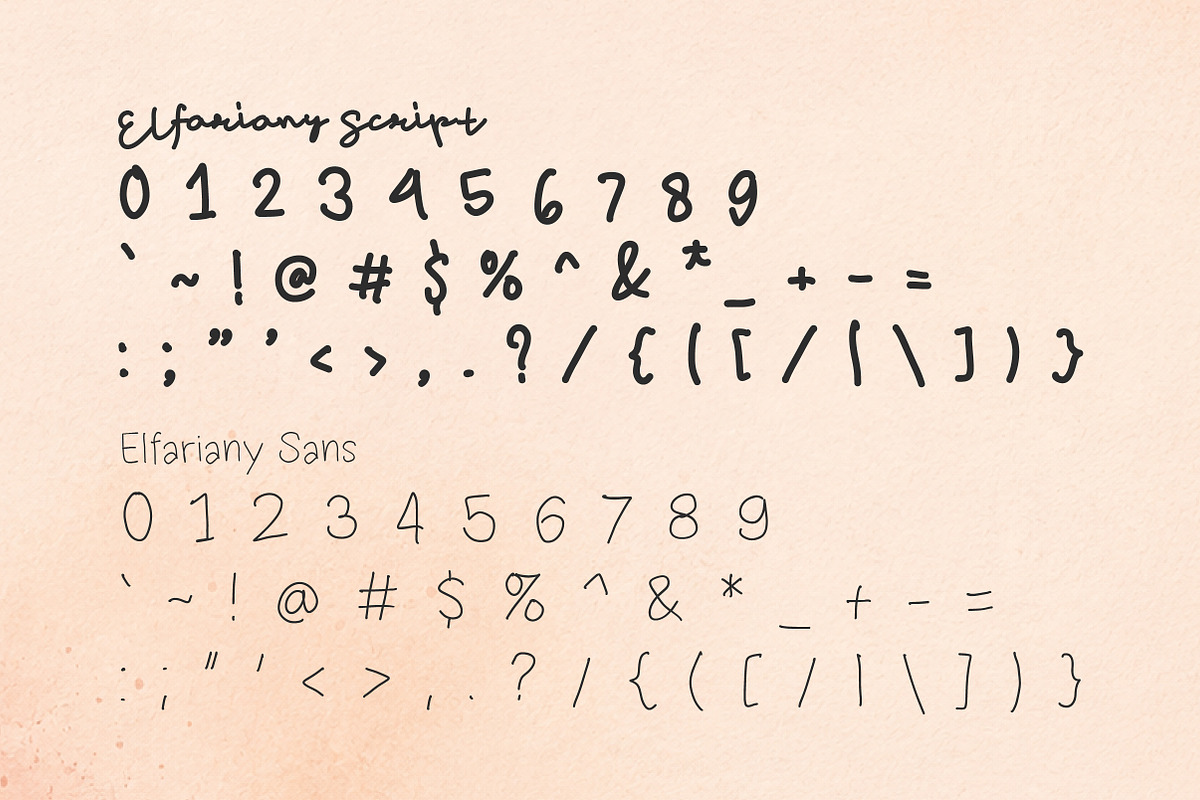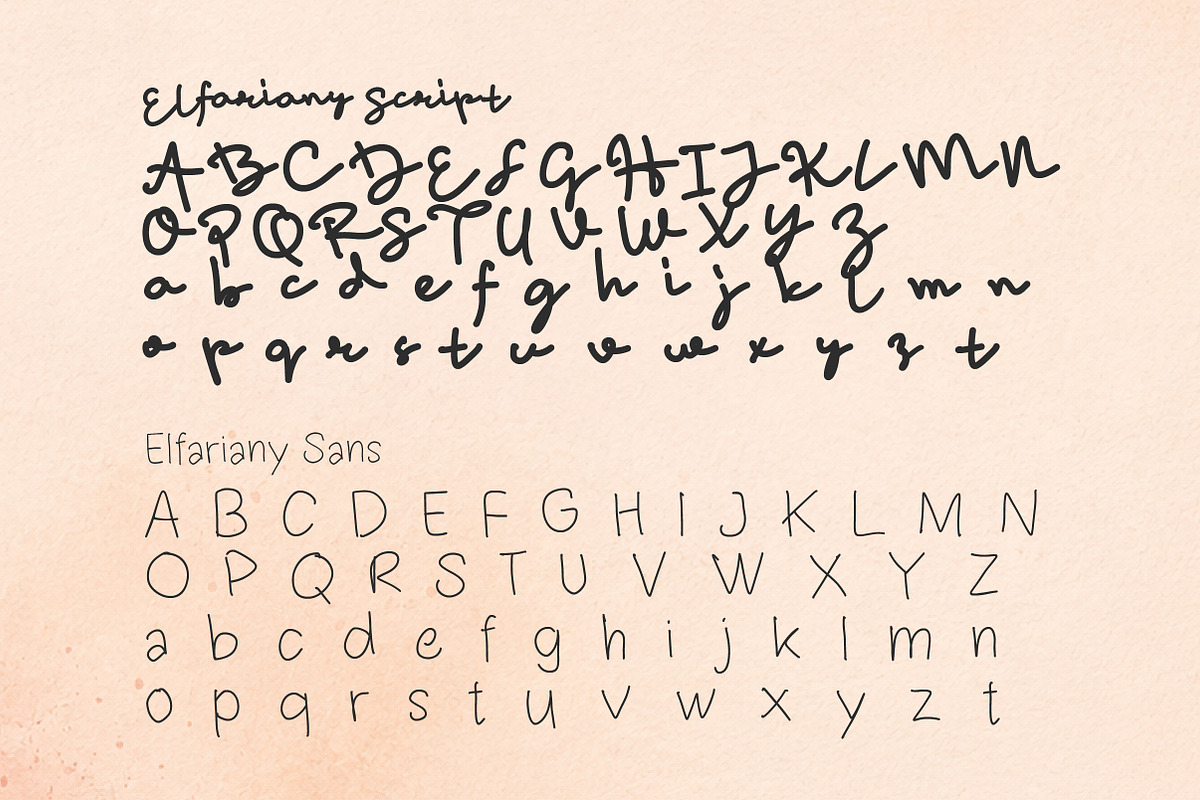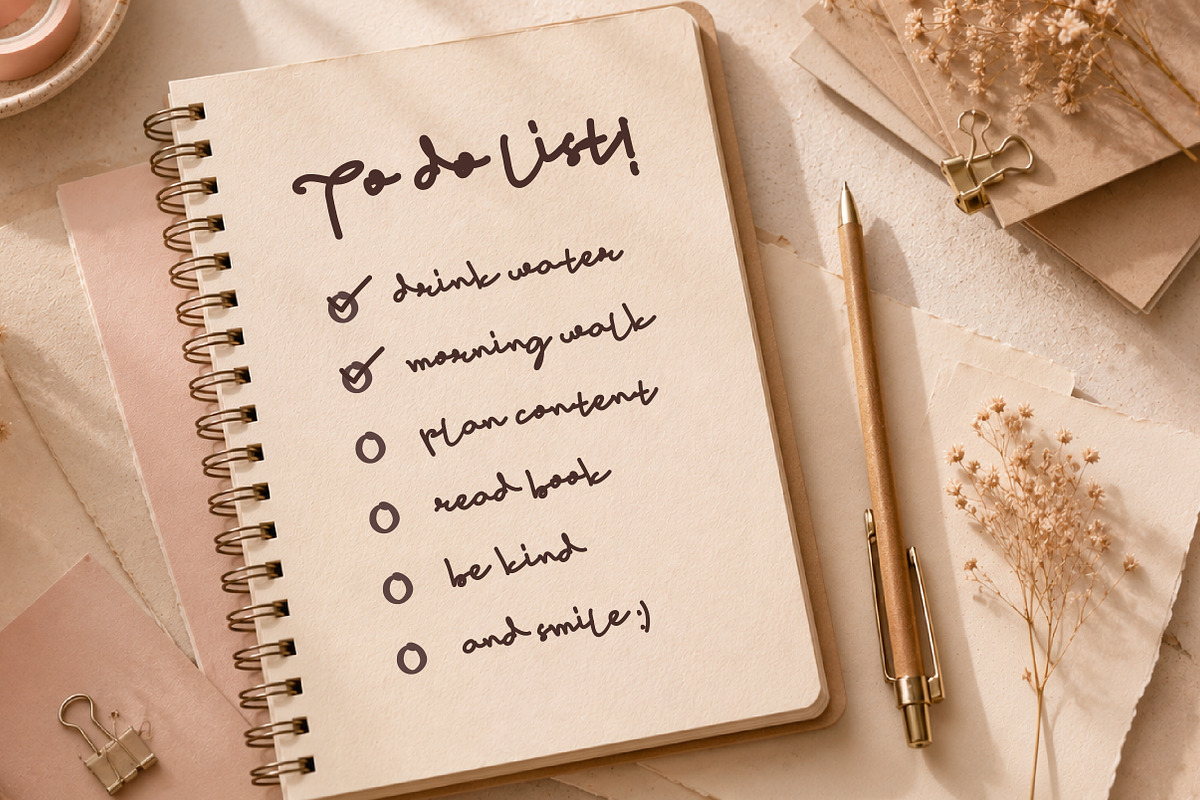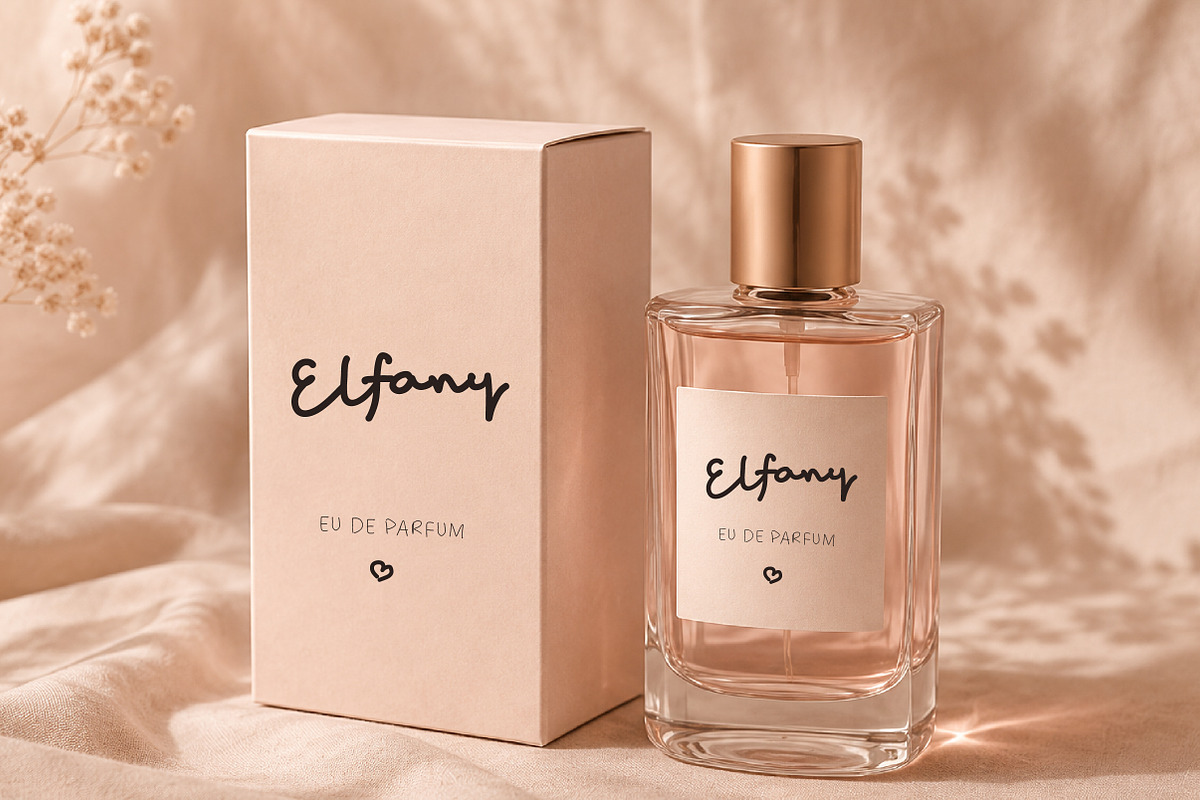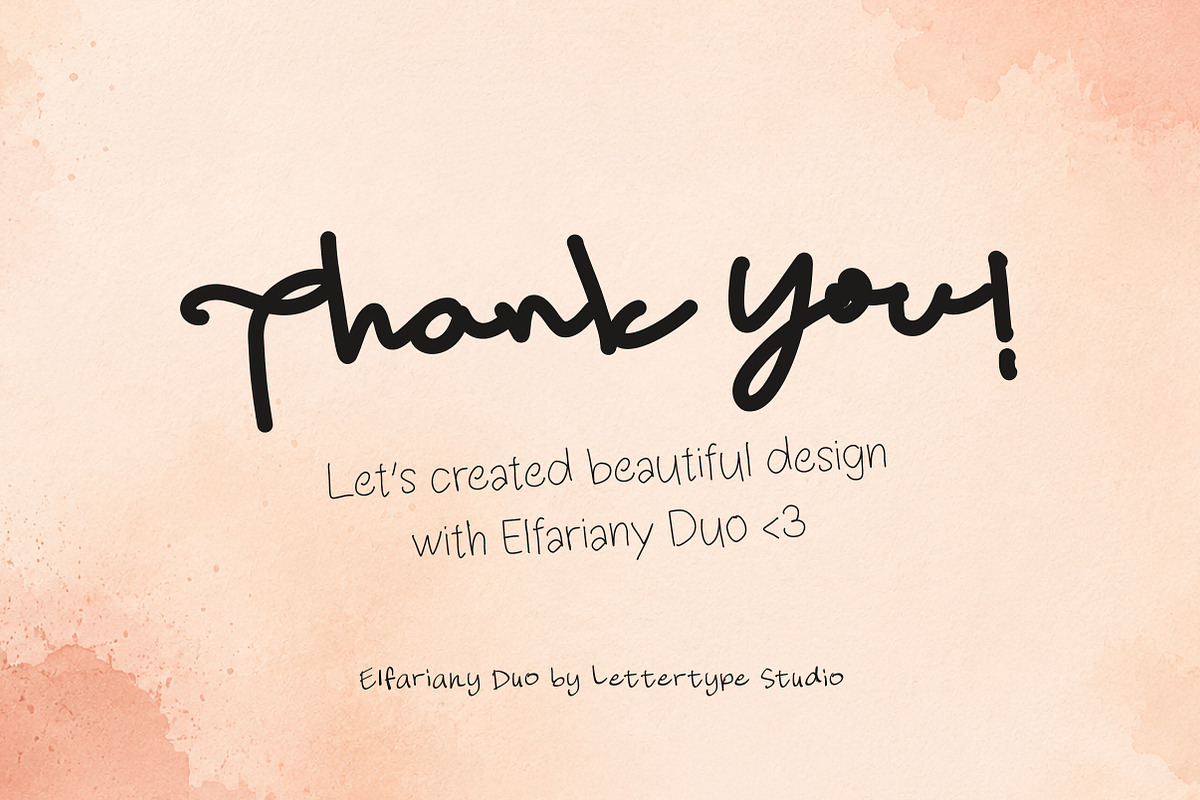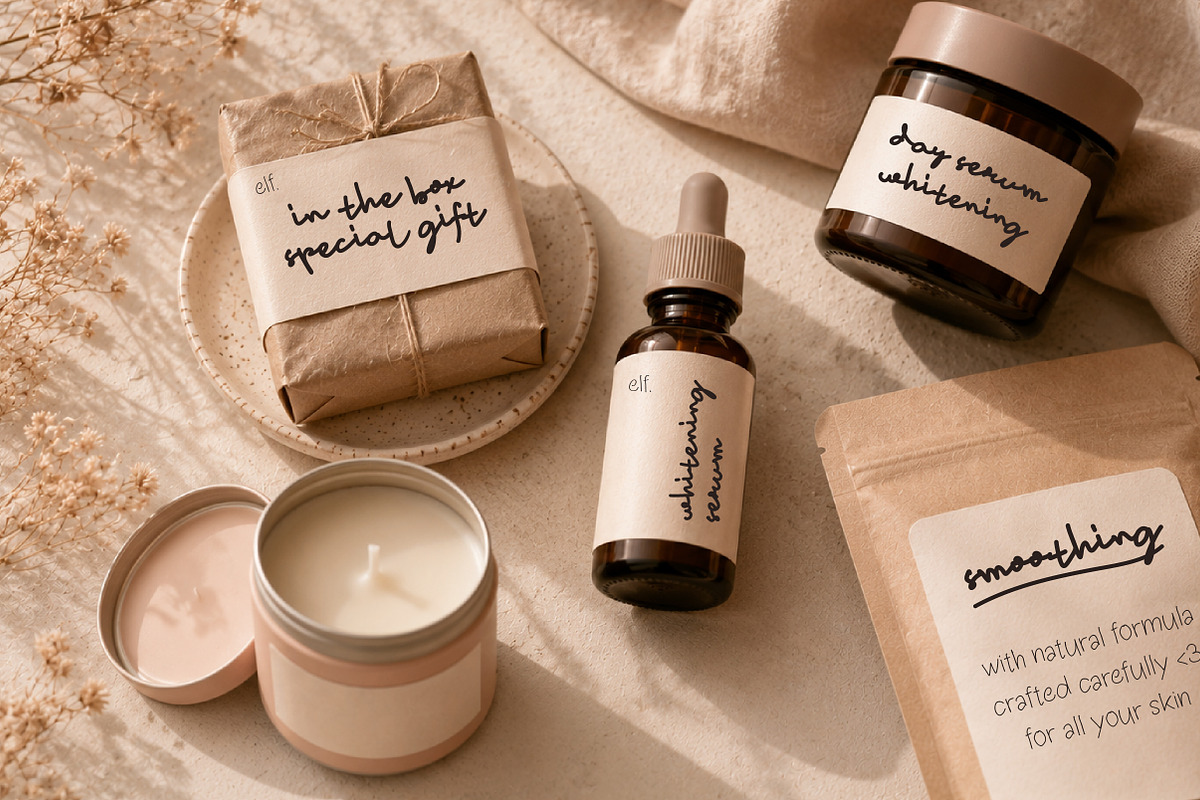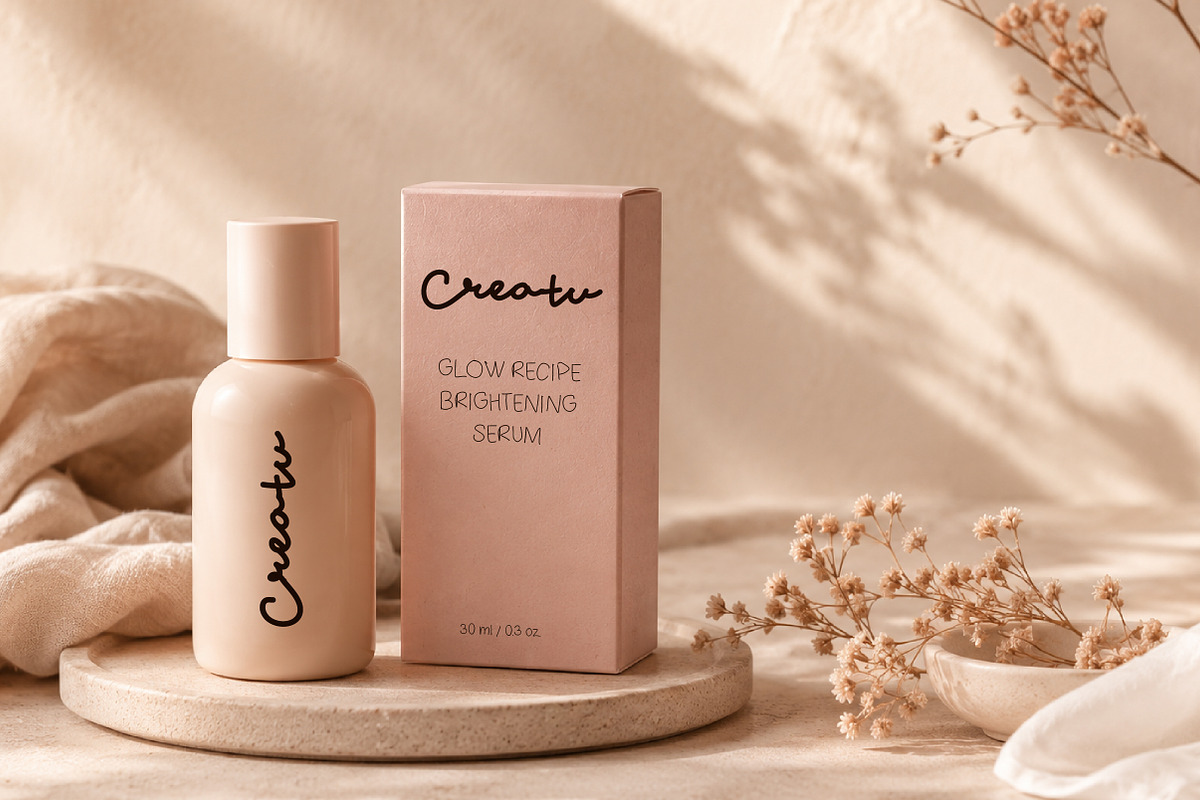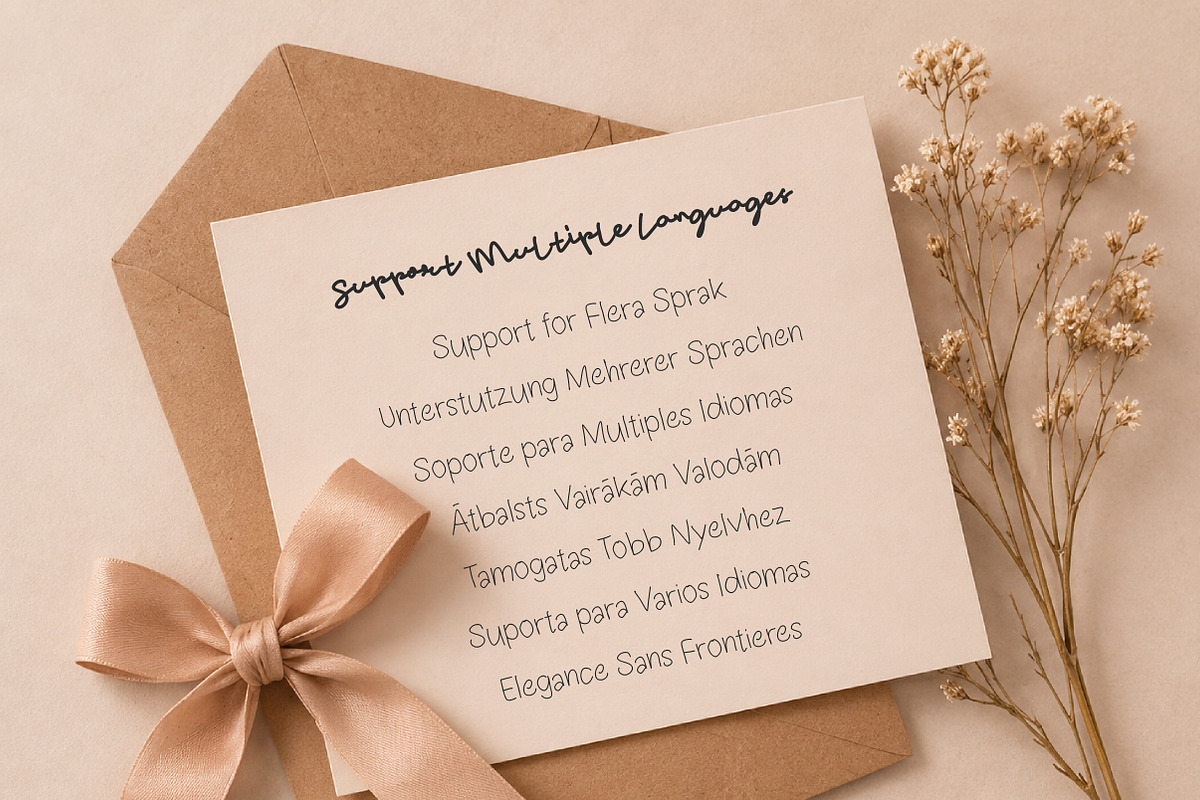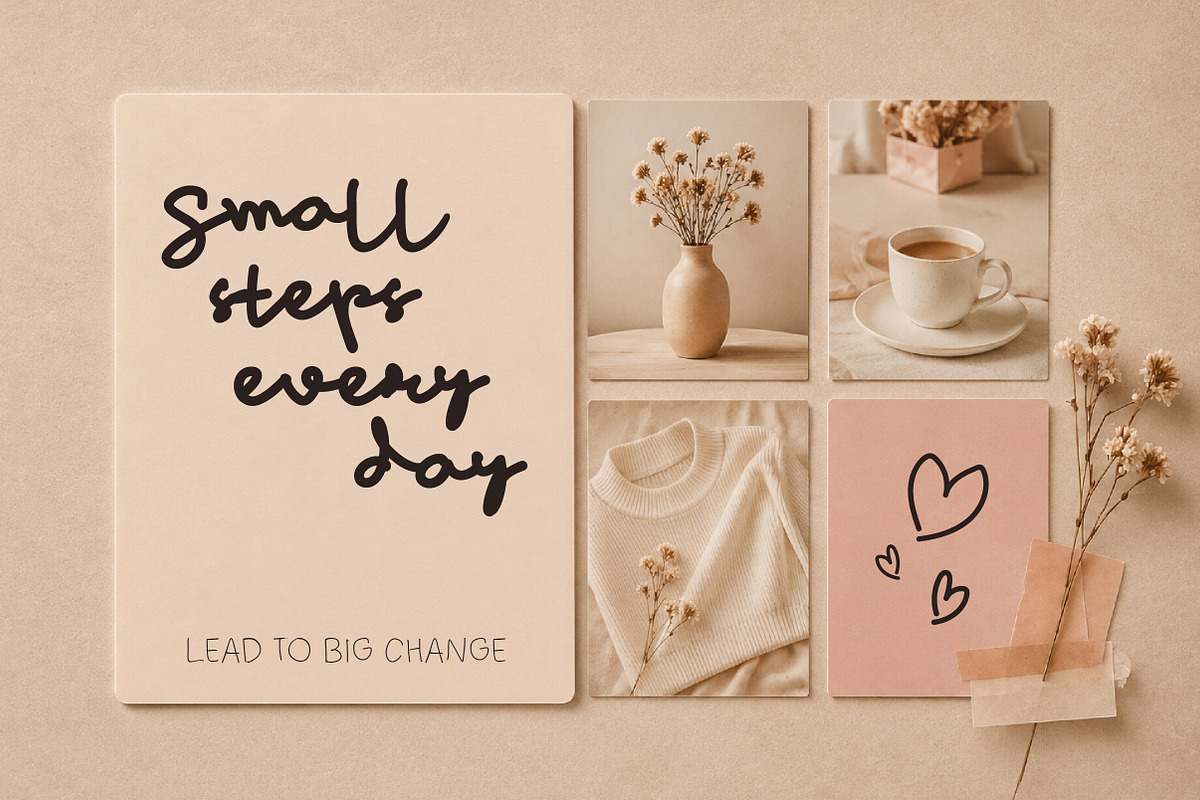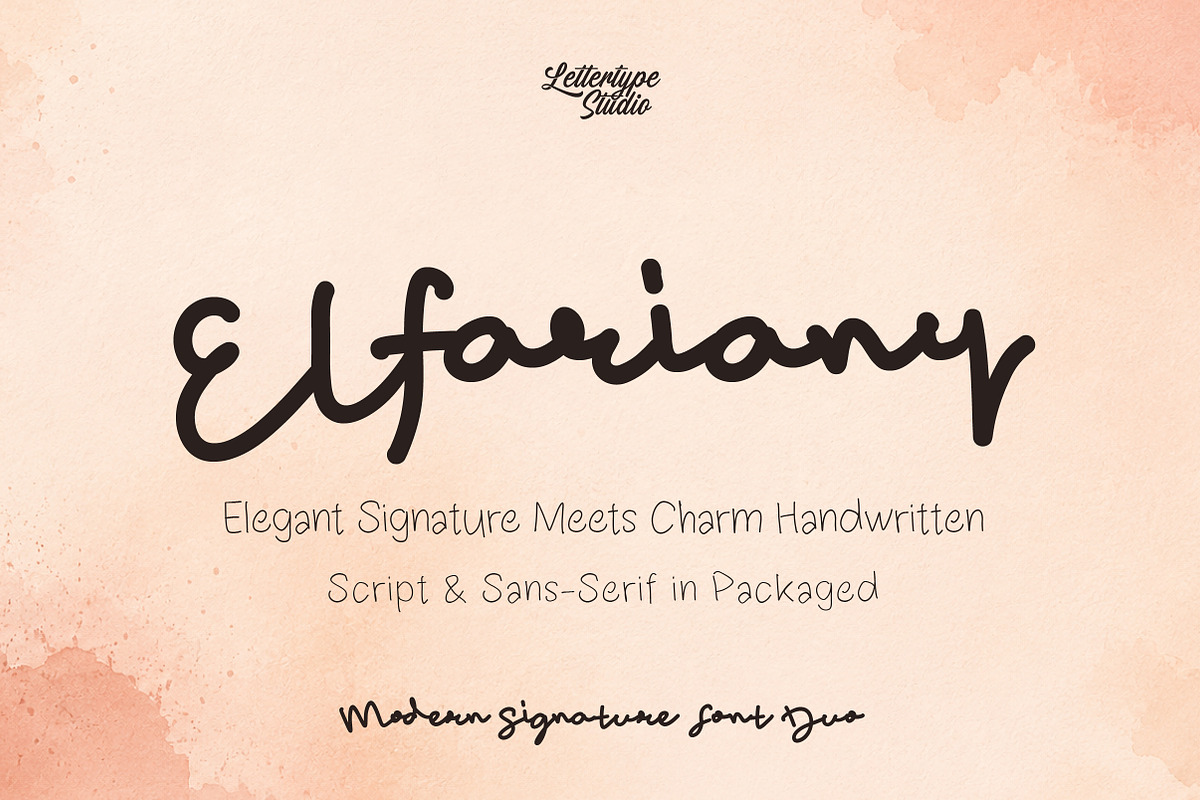
Elfariany Duo - Script & Sans-Serif
Elfariany Duo is a modern handwritten font duo featuring an expressive signature script paired with a clean monoline handwritten sans. Designed to create warm, stylish, and personal branding visuals, this duo delivers the perfect balance between elegance and casual authenticity.
The script style flows naturally with bold handwritten energy, while the sans companion keeps layouts clean, friendly, and highly usable across branding, packaging, social media, wedding design, and lifestyle content. Together, they create a versatile font system for creators who want emotional yet modern typography.
Elfariany Duo Features:
2 Styles
Sans-Serif & Script
386 Glyphs Total Each Font
260+ Languages Support
Feminine Branding
Wedding Design
Social Media Content
Packaging & Labels
Journaling & Planner Design